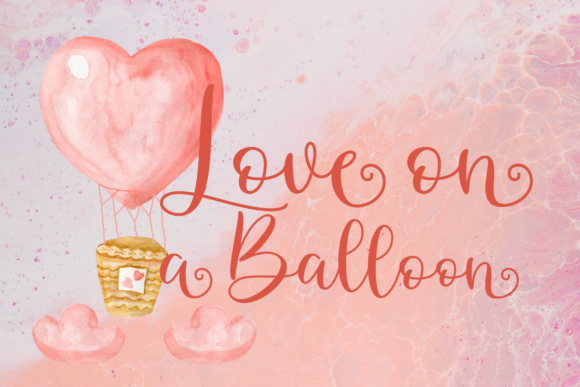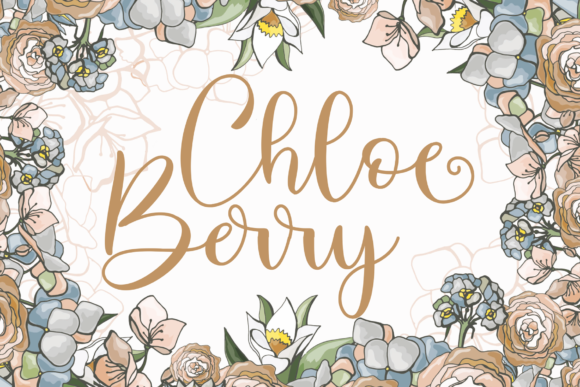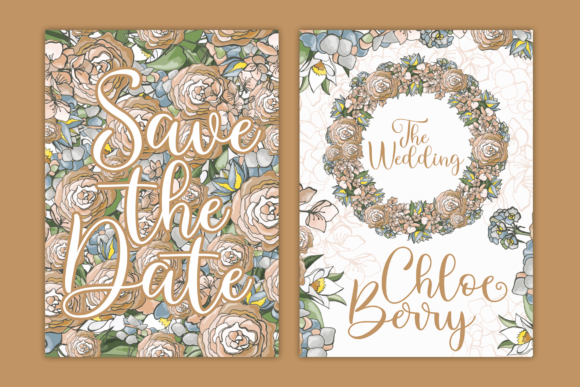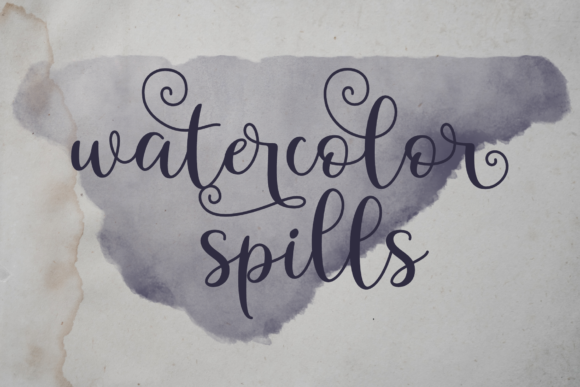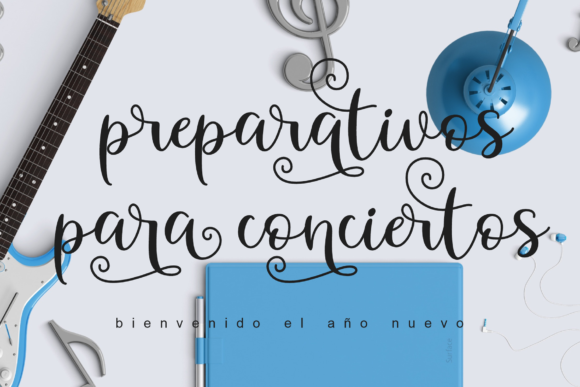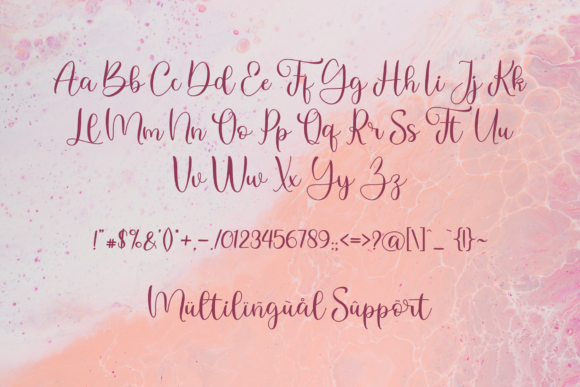
Aurelisa Font: Elevate Your Designs with Delicate Elegance
Are you searching for a font that exudes elegance and sophistication? Look no further than Aurelisa Font, a delicate and handwritten typeface that is sure to elevate your designs to new heights. With its distinct and well-rounded letters, Aurelisa is a masterpiece that will add a touch of refinement to any project.
The Characteristics of Aurelisa Font
Aurelisa Font is a handwritten font that boasts a unique and elegant aesthetic. Its delicate strokes and rounded letters give it a soft, yet refined appearance that is perfect for a variety of design applications. Whether you’re working on a branding project, a wedding invitation, or a craft project, Aurelisa is sure to make a lasting impression.
Why Choose Aurelisa Font?
So, what sets Aurelisa Font apart from other fonts on the market? Here are just a few reasons why designers and crafters are falling in love with this beautiful typeface:
- Unique and Elegant Design: Aurelisa’s delicate and rounded letters make it a standout font that is sure to add a touch of sophistication to any design.
- Versatile: Aurelisa is a versatile font that can be used for a wide range of design applications, from branding and advertising to wedding invitations and craft projects.
- Easy to Read: Despite its delicate appearance, Aurelisa is surprisingly easy to read, making it perfect for body text and other applications where readability is key.
- High-Quality: Aurelisa is a high-quality font that is designed to deliver exceptional results, whether you’re working on a print or digital project.
How to Use Aurelisa Font in Your Designs
Ready to add Aurelisa Font to your design arsenal? Here are a few tips for incorporating this beautiful font into your projects:
- Pair it with Bold Fonts: Aurelisa’s delicate appearance makes it the perfect pairing for bold, sans-serif fonts. Try pairing it with a font like Arial Black or Impact for a striking contrast.
- Use it for Headings and Titles: Aurelisa’s elegant appearance makes it perfect for headings and titles. Use it to add a touch of sophistication to your designs and draw attention to key information.
- Add it to Your Branding: Aurelisa’s unique and elegant design makes it a great addition to any brand’s visual identity. Consider using it for your logo, business cards, or other marketing materials.
Aurelisa Font in the World of Crafting
Aurelisa Font isn’t just for designers – it’s also a great addition to any crafter’s toolkit. Whether you’re working on a quilting project, a scrapbooking page, or a handmade card, Aurelisa is sure to add a touch of elegance and sophistication.
- Use it for Journaling: Aurelisa’s easy-to-read design makes it perfect for journaling and writing. Add it to your scrapbooking pages or journals for a personal touch.
- Add it to Your Handmade Cards: Aurelisa’s elegant appearance makes it perfect for handmade cards and gift tags. Use it to add a touch of sophistication to your correspondence.
- Incorporate it into Your Quilting Projects: Aurelisa’s delicate design makes it a great addition to quilting projects. Use it to add labels or decorative elements to your quilts.
In conclusion, Aurelisa Font is a beautiful and elegant handwritten font that is sure to elevate your designs to new heights. With its unique and well-rounded letters, Aurelisa is a masterpiece that will add a touch of refinement to any project. Whether you’re a designer, crafter, or simply someone who appreciates beautiful typography, Aurelisa is a font that is sure to impress.